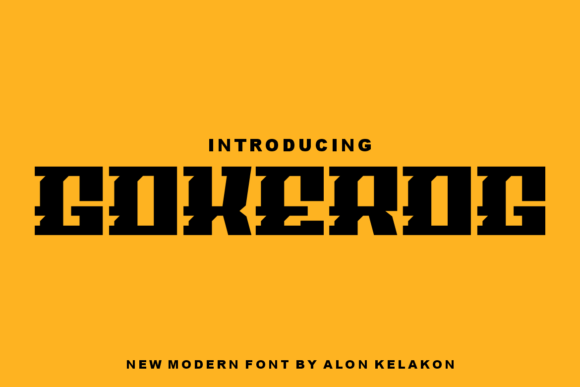
The Perfect Font for Your Creative Vision
You know that moment when a single element can elevate your entire design project? Maybe it’s a bold color choice or an unexpected texture. For me, it’s the perfect font. And that’s exactly what the Gokerog Font offers – a unique blend of style and versatility that can take your designs to the next level.
As a versatile slab serif font, Gokerog Font is perfect for a wide range of applications, from labeling and clothing to movie scenes and album covers. Its clean lines and rugged texture make it an excellent choice for designers looking to add some edge to their work. With Gokerog Font, you can create stunning visuals that capture attention and convey your message.
Whether you’re a seasoned designer or just starting out, the Gokerog Font is an invaluable addition to your toolkit. Its flexibility and unique style make it a valuable asset for any creative project, and its ease of use means you can focus on what matters most – bringing your vision to life.
Gokerog Font Key Features
- Character Set: The font features a comprehensive character set, including Latin, Cyrillic, and Greek alphabets, making it suitable for multilingual projects.
- Unique Characteristics: The font’s distinctive design and intricate details set it apart from other serif fonts, making it ideal for projects that require a touch of elegance and sophistication.
- Font Style: Gokerog Font is available in both Regular and Bold styles, providing flexibility for designers to choose the perfect weight for their project.
Gokerog Font Review
First off, I want to say that I’m a big fan of the Gokerog font. The designers have done an excellent job of creating a unique and stylish font that can be used for a wide range of applications. ✨ Here are some things that work well:
- Unique style: The Gokerog font has a distinct, quirky feel that sets it apart from other fonts.
- High-quality design: The font is well-designed and looks great at various sizes and resolutions.
- Flexibility: The Gokerog font can be used for both body text and headings, making it a versatile choice.
- Limited language support: The Gokerog font only includes support for a few languages, which may be a problem for designers who need to work with text in other languages.
- No bold or italic weights: While the font looks great at normal weight, it would be nice to have bold and italic options for added emphasis.
- Some characters may not display correctly: I noticed that a few characters, such as the tilde (~) and the caret (^), don’t display properly in some applications.
Overall, I think the Gokerog font is a great choice for designers who want a unique and stylish font for their projects. While it has some limitations, the font’s unique style and high-quality design make it a solid option for a wide range of applications.
The Gokerog font is a unique and modern font that can be used for a variety of purposes, including:
- Brand logos and identities
- Marketing materials, such as brochures and flyers
- Typography-based art and design
Some tips for getting the most out of the Gokerog font include:
- Using it in combination with other modern fonts for a unique look
- Experimenting with different font sizes and